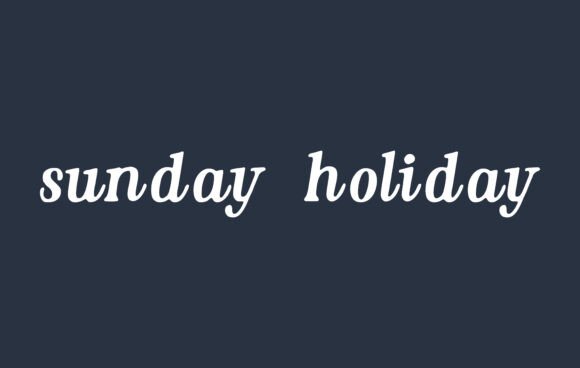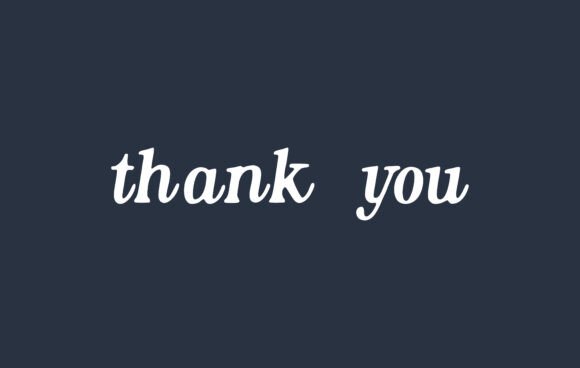
Introducing Formora Font: The Perfect Blend of Romance and Legibility
Are you a designer or crafter looking for a font that can add a touch of romance and elegance to your creative projects? Look no further than Formora Font, an authentic handwritten font that is sure to become your new favorite. With its unique blend of classic charm and modern legibility, Formora Font is the perfect choice for a wide range of design applications.
What Makes Formora Font So Special?
Formora Font is an expertly designed handwritten font that boasts a romantic touch, making it ideal for designs that require a personal and emotive feel. Whether you’re working on a magazine headline, social media post, branding campaign, wedding invitation, or card, Formora Font is sure to impress. Its legible and clean design ensures that it looks great as both title and body text, giving you the flexibility to use it in a variety of contexts.
Key Features of Formora Font
- Authentic Handwritten Design: Formora Font is a genuine handwritten font that has been carefully crafted to capture the essence of traditional handwriting.
- Romantic Touch: With its elegant and flowing lines, Formora Font adds a touch of romance and sophistication to any design.
- High Legibility: Despite its ornate appearance, Formora Font is highly legible, making it perfect for use as both title and body text.
- Versatile: Formora Font is suitable for a wide range of design applications, including magazine headlines, social media posts, branding campaigns, wedding invitations, cards, and more.
Why Choose Formora Font?
There are many fonts available to designers and crafters, but Formora Font stands out from the crowd for several reasons. Firstly, its unique and authentic handwritten design ensures that your designs will stand out from the competition. Secondly, its romantic touch adds an emotional and personal feel to your designs, making them more engaging and relatable. Finally, its high legibility ensures that your message will be communicated clearly and effectively, regardless of the context.
How to Use Formora Font in Your Designs
Formora Font is incredibly versatile and can be used in a wide range of design applications. Here are a few ideas to get you started:
- Magazine Headlines: Use Formora Font to create eye-catching headlines that grab the reader’s attention.
- Social Media Posts: Add a touch of elegance and sophistication to your social media posts with Formora Font.
- Branding Campaigns: Use Formora Font to create a consistent and recognizable brand identity.
- Wedding Invitations: Add a romantic touch to your wedding invitations with Formora Font.
- Cards: Use Formora Font to create beautiful and personalized cards for any occasion.
Tips and Tricks for Getting the Most Out of Formora Font
To get the most out of Formora Font, here are a few tips and tricks to keep in mind:
- Experiment with Different Sizes: Formora Font looks great in a variety of sizes, so don’t be afraid to experiment to find the perfect size for your design.
- Play with Color: Formora Font looks great in a range of colors, so try experimenting with different colors to add depth and interest to your design.
- Combine with Other Fonts: Formora Font pairs well with a range of other fonts, so try combining it with other fonts to create a unique and interesting design.
In conclusion, Formora Font is an exceptional handwritten font that offers a unique blend of romance, elegance, and legibility. With its authentic design, romantic touch, and high legibility, Formora Font is the perfect choice for designers and crafters looking to add a touch of sophistication and elegance to their creative projects. Whether you’re working on a magazine headline, social media post, branding campaign, wedding invitation, or card, Formora Font is sure to impress.